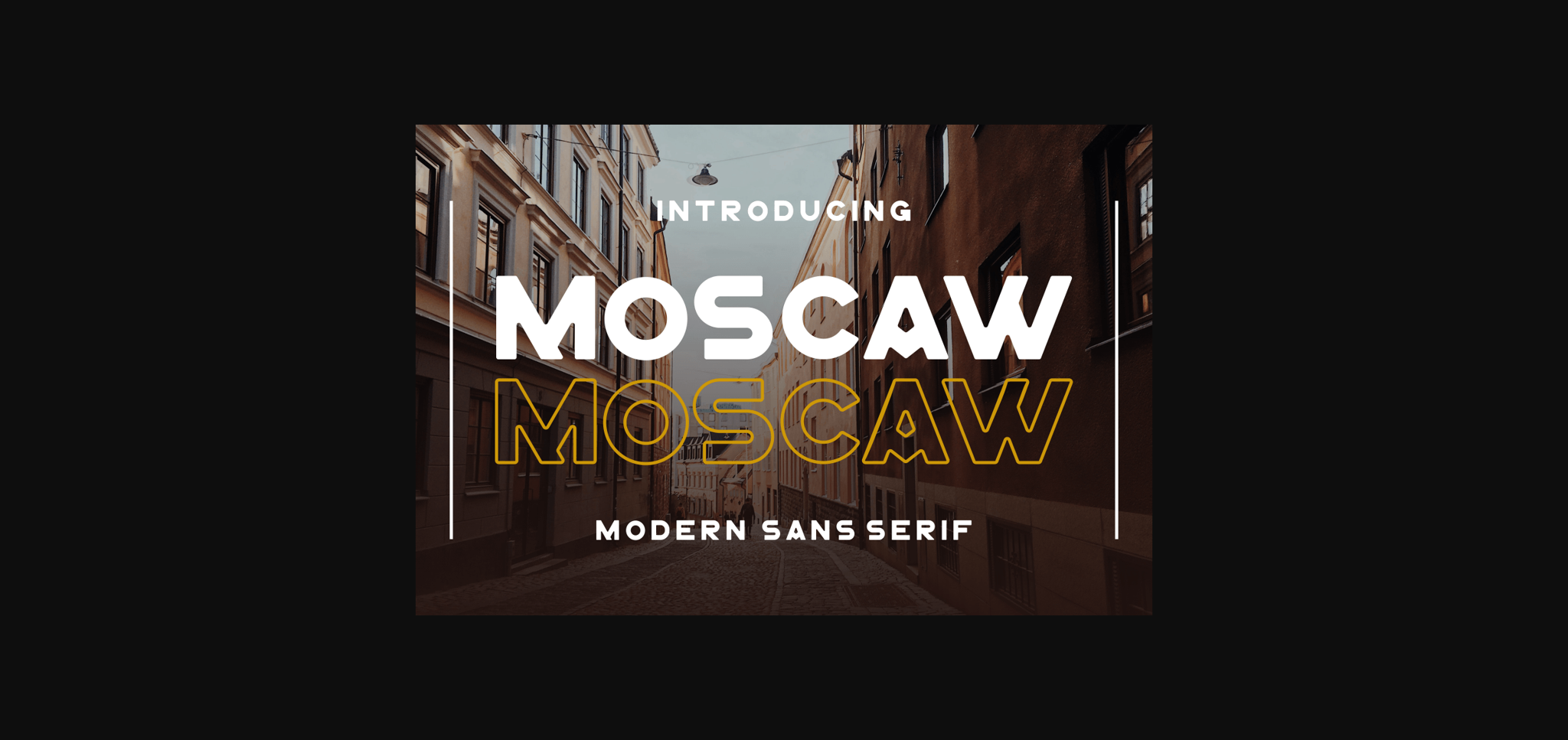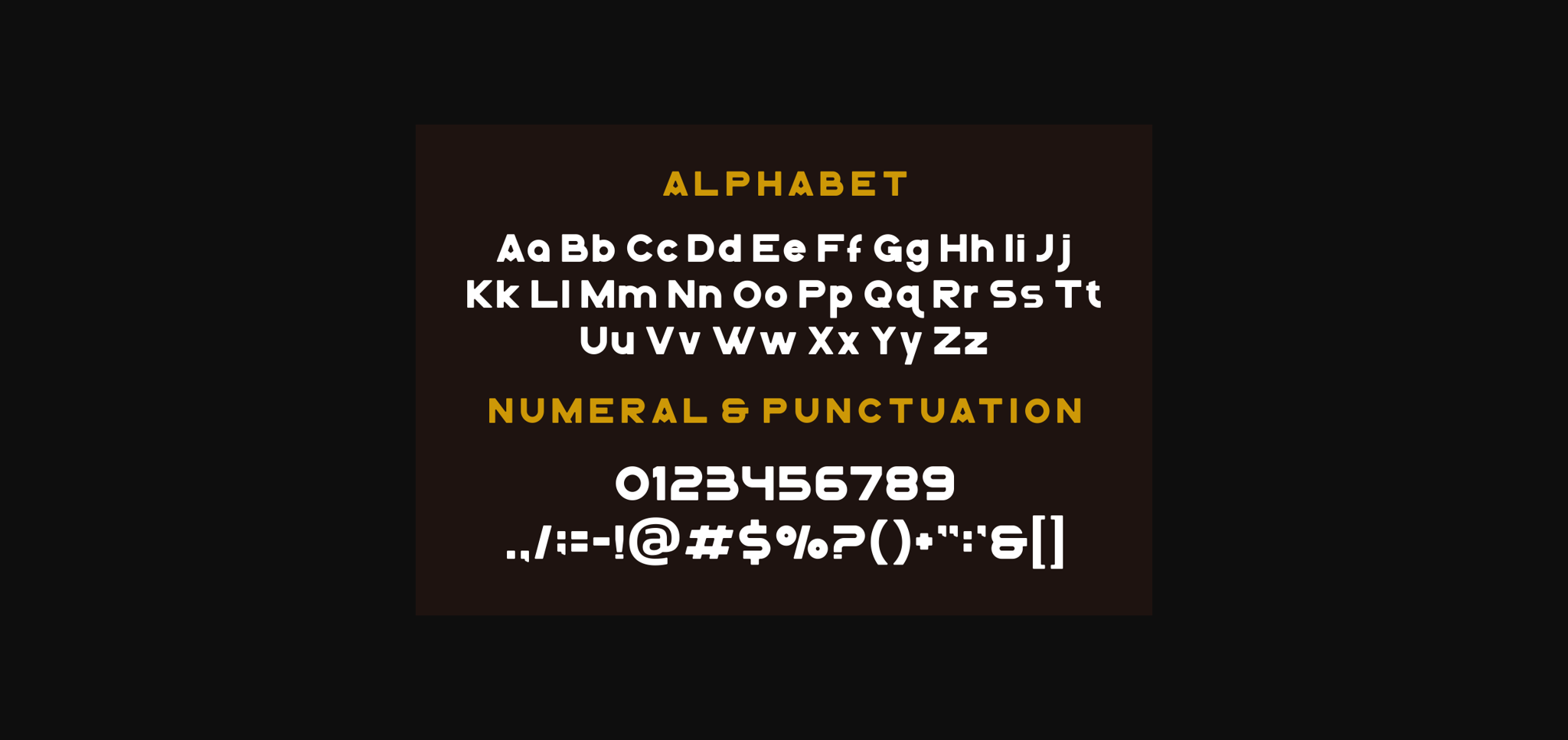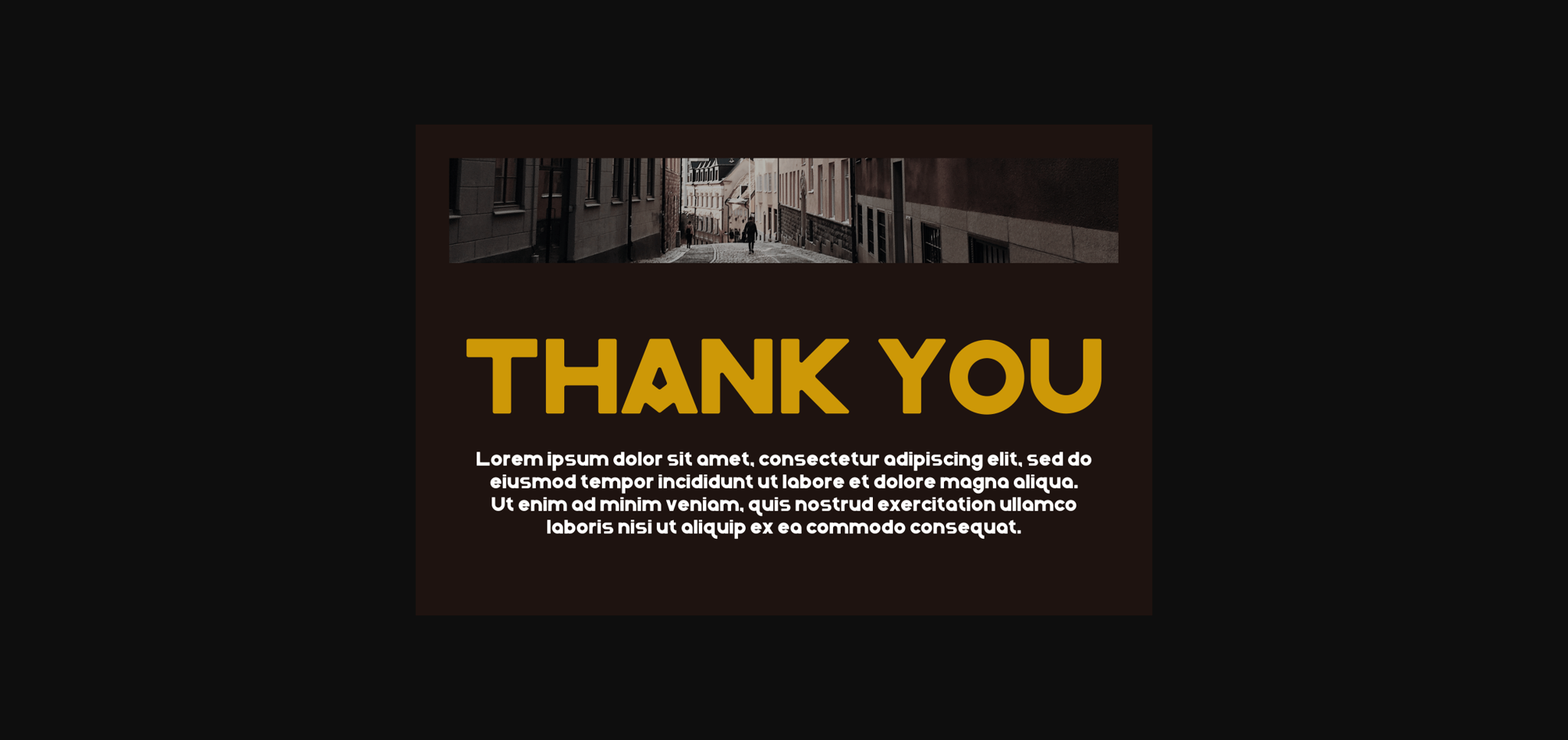
Moscaw Font
About Moscaw Font
Moscaw is a cool and modern sans serif display font. It has a classy, elegant, and modern look that can be used for logos, branding, invitations, stationery, wedding designs, social media posts, and much more!